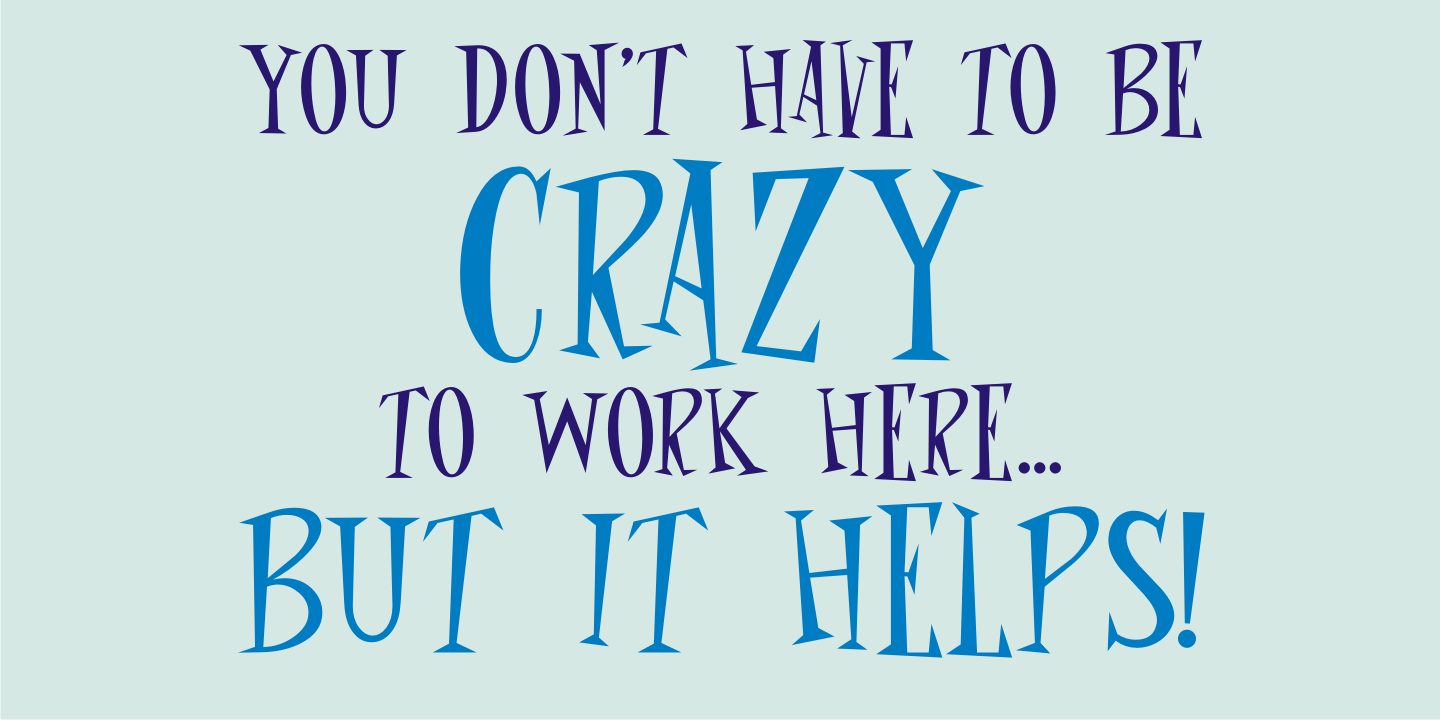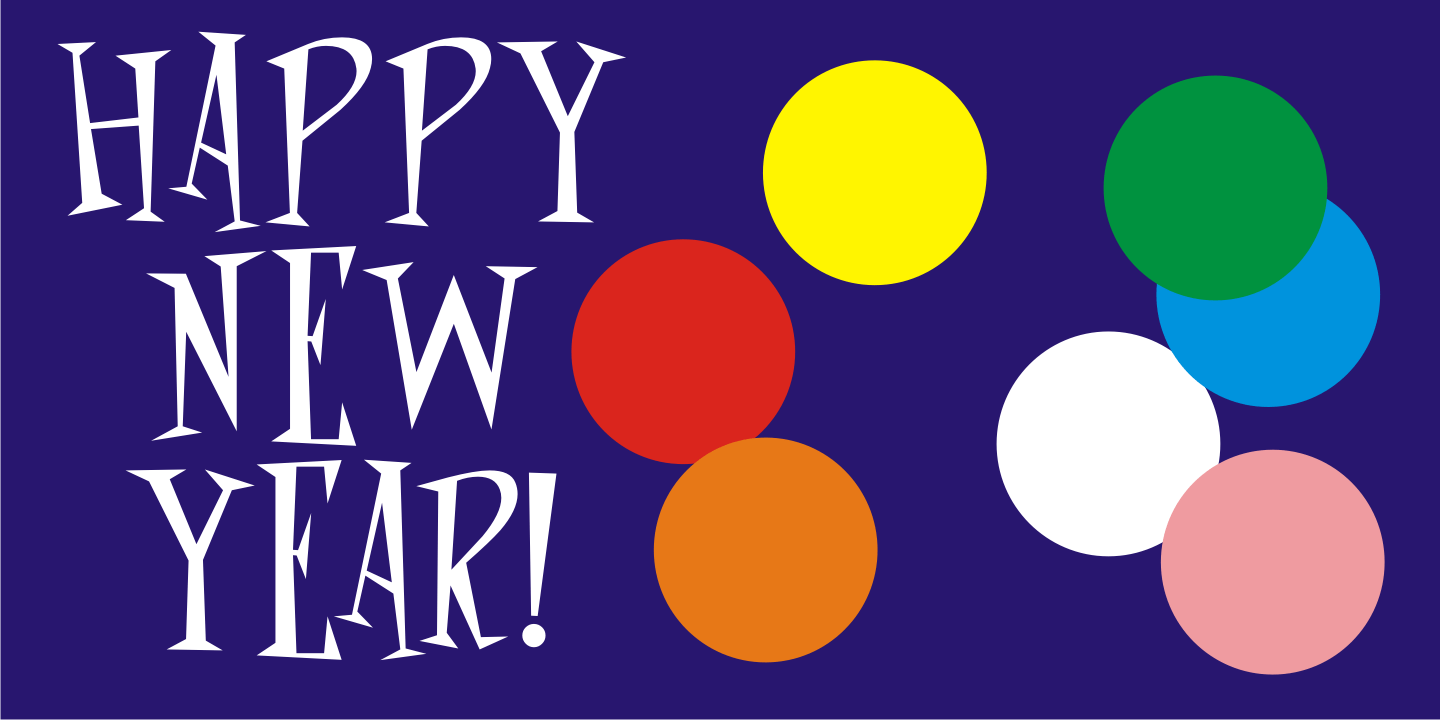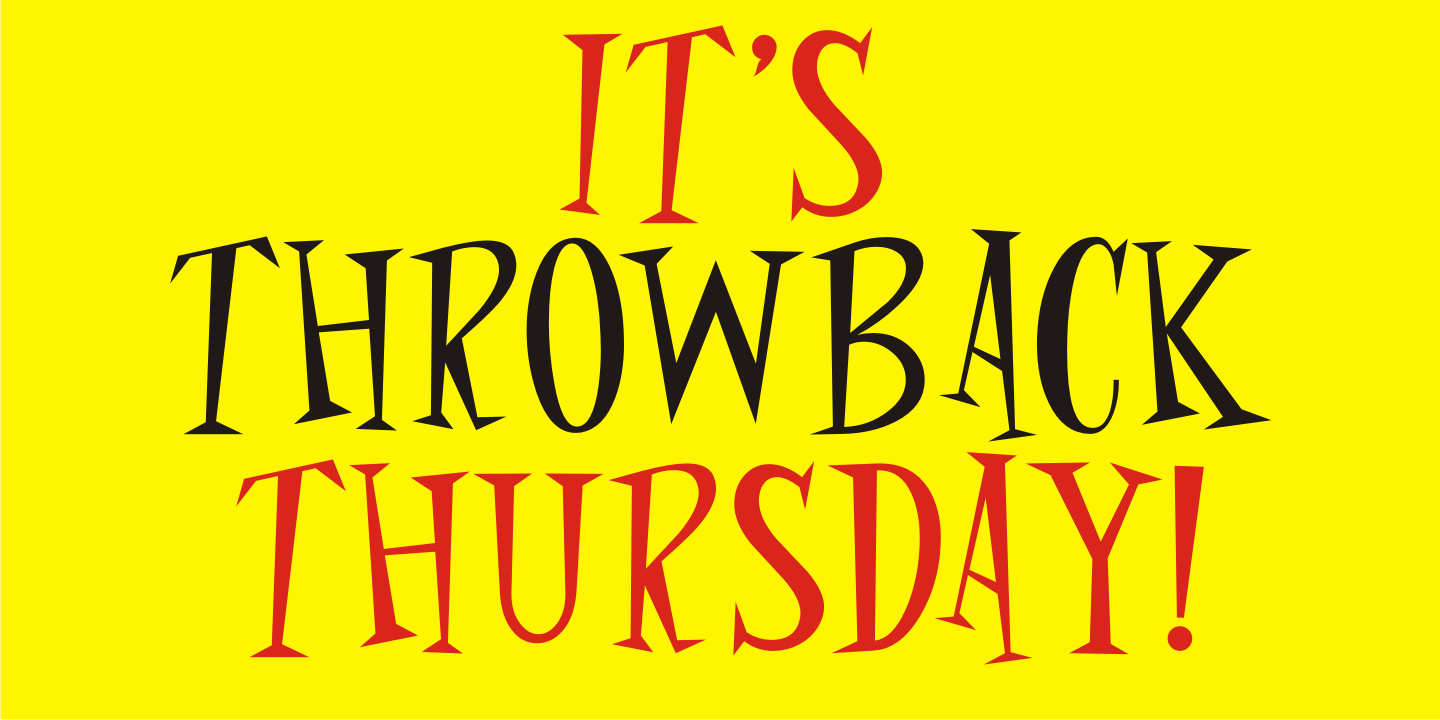
Frantic Pace
Frantic Pace JNL is based on hand lettering found on the lid of a late 1950s or early 1960s edition of the Print Craft alphabet printing set once manufactured by the Superior Marking Equipment Company of Chicago.
The free-form spurred serif lettering is fun and casual; giving the impression of movement or action.
Frantic Pace JNL Regular by Jeff Levine Fonts